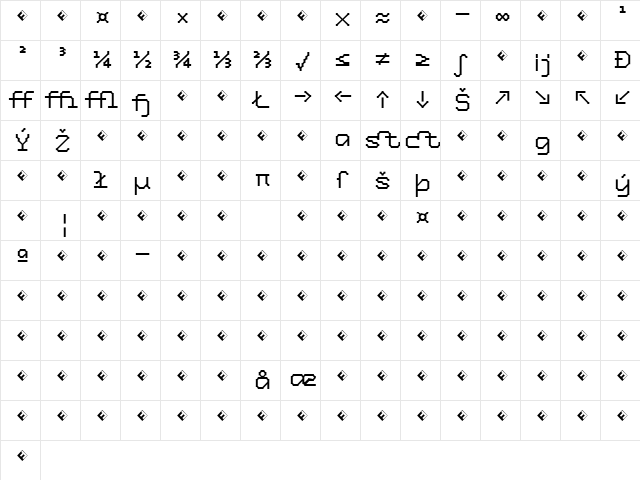
Tronic-RegularExpert Regular
| Foundry | Hyun Cho, Sung Min Choi; published by FontShop International for the FontFont Library |
| Designer | Hyun Cho, Sung Min Choi |
Design Context for Tronic-RegularExpert Typeface
Tronic-RegularExpert takes a measured approach to typography — its balanced proportions and neutral character make it a reliable workhorse for both digital and print work.